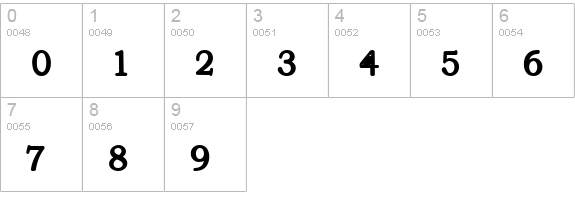
Text Serif Heavier HPLHS Font Details
Introducing Text Serif Heavier HPLHS font, a beautiful typeface that combines elegance with a touch of boldness. This versatile font is perfect for creating eye-catching headlines, captivating body text, and professional-looking designs. With its carefully crafted serifs and well-balanced weight, Text Serif Heavier HPLHS exudes a sense of sophistication and refinement. It commands attention without overpowering the overall design, making it an ideal choice for a wide range of projects, from branding and advertising to editorial and web design. One of the most remarkable aspects of Text Serif Heavier HPLHS is that it is freely available to download at FontsMarket.com. This means that designers, students, and enthusiasts alike can access this remarkable font without any restrictions. Its availability on FontsMarket.com ensures that anyone can effortlessly enhance their projects with this timeless typeface. Text Serif Heavier HPLHS boasts a comprehensive character set, including uppercase and lowercase letters, numerals, punctuation marks, and various special characters. Whether you are designing a website, creating brochures, or developing a logo, this font provides all the necessary elements to bring your vision to life. The clean and crisp lines of Text Serif Heavier HPLHS make it highly legible, ensuring readability even at smaller sizes. Its robust presence and attention to detail guarantee that your message will be communicated effectively, leaving a lasting impression on your audience. With its timeless appeal and versatility, Text Serif Heavier HPLHS will elevate the aesthetic quality of any project. Whether you are a professional designer or an amateur enthusiast, this font is sure to become an indispensable tool in your creative arsenal. Experience the beauty and power of Text Serif Heavier HPLHS by downloading it for free at FontsMarket.com. Expand your design possibilities and captivate your audience with this remarkable font.